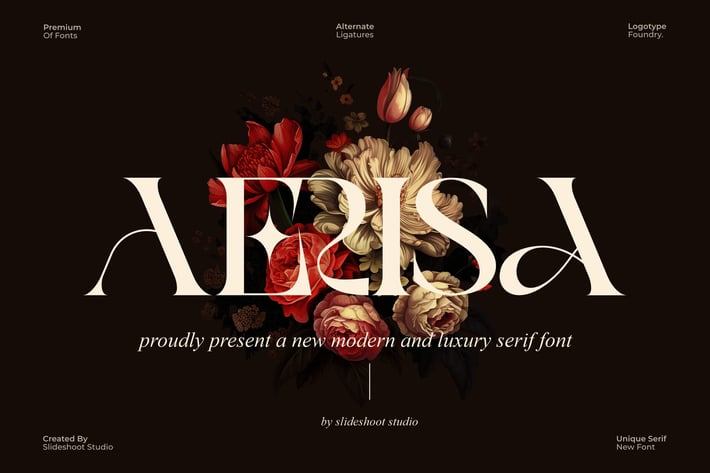
Aerisa || Modern and Luxury Serif Font
Aerisa Serif is a modern and classy font type for all branding and logo designs. This modern and classy Serif font has a beautiful character. This font is suitable for invitation card designs, cool logos, movie titles, movie names, business cards, book titles, brand names, and various other designs. Aerisa Serif is a smooth serif font that exudes sophistication and the moment. Its stylish alterations and ligatures make this font a perfect partner for any project.
- Uppercase and lowercase
- Numbering and Punctuation